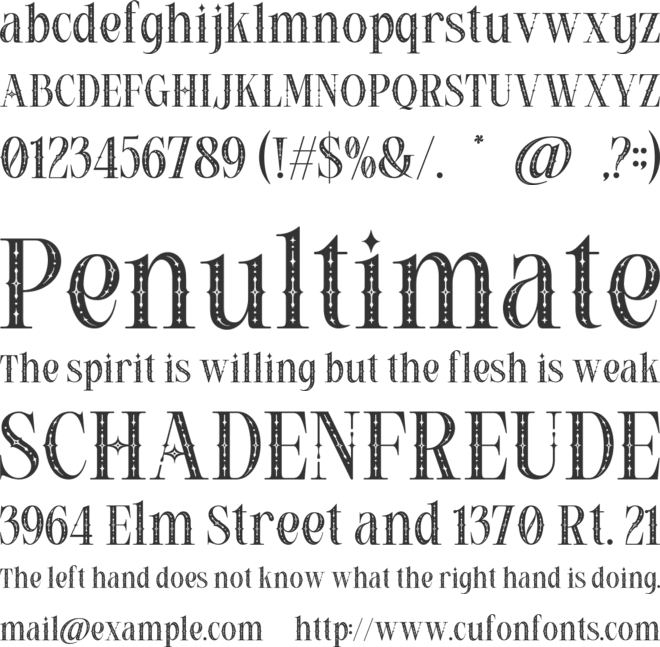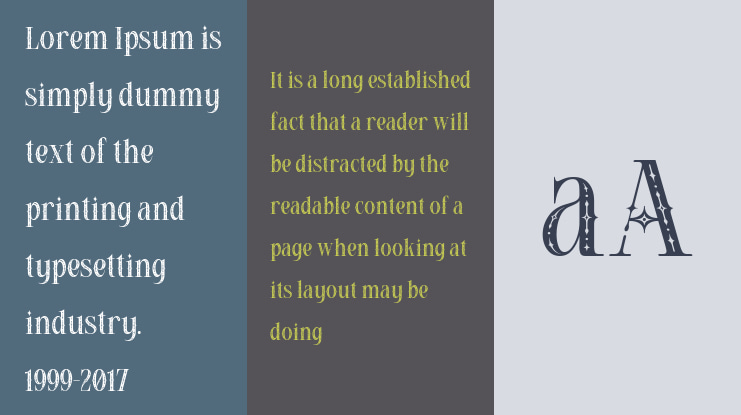
Silveria Magic Font
Silveria Magic – Celestial Fantasy Typeface
Step into a world of eternal enchantment with Silveria Magic, a captivating fantasy display typeface inspired by the miracle of silver light and the timeless beauty of moonlit skies.
Crafted with precision, Silveria Magic features elegant, high-contrast serif letterforms that beautifully balance luxury and mystical charm. What truly sets this typeface apart is its breathtaking collection of celestial ornaments—sparkling stars, crescent moons, and graceful flowing swashes that allow you to create custom, magical typographic compositions.
Silveria Magic font preview